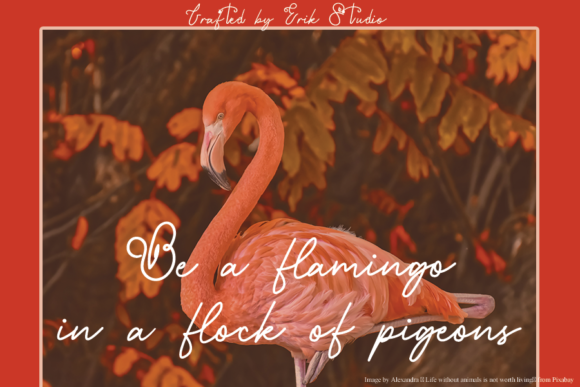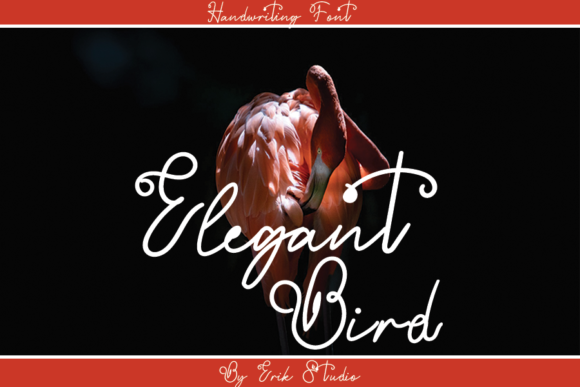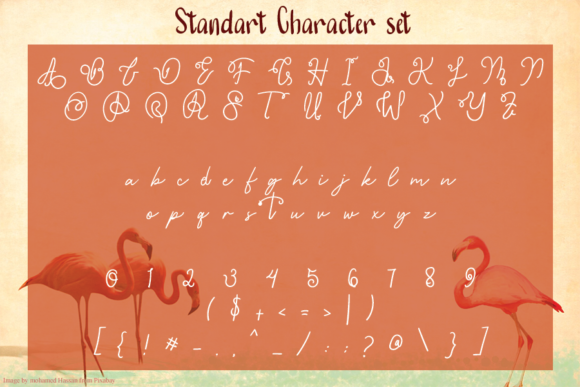
About Hey Flamingo Font
Hey Flamingo is a flowing handwritten font, described by an elegant touch, perfect for your favorite projects. Fall in love with its incredibly distinct and timeless style and use it to create spectacular designs!